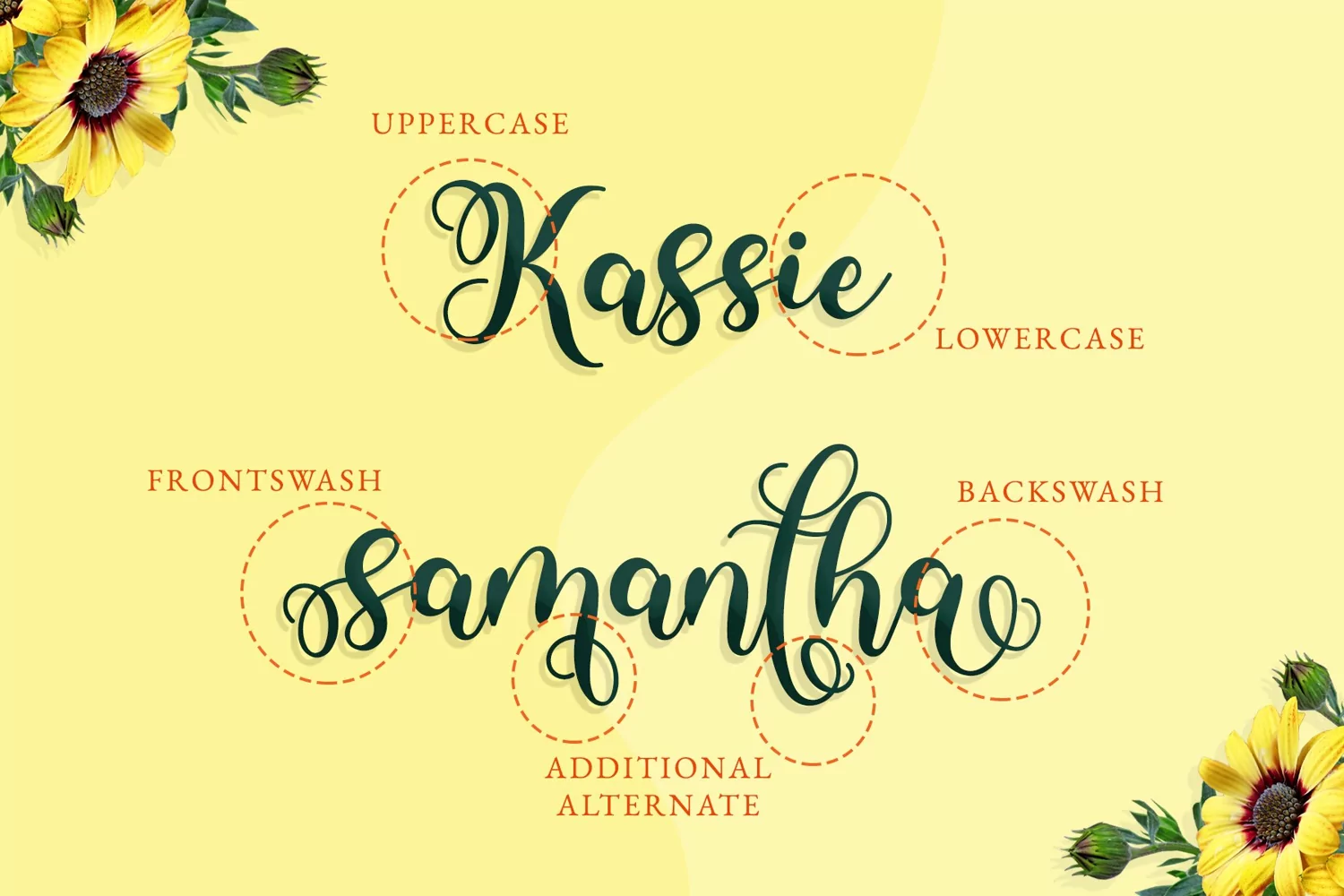
Yushina is modern sweet calligraphy font. It is elegant, classy, and sweet. Yushina has swash with swirly touch in the beginning and in the ending.
This font can be used for wide ranges of project, such as wedding invitation, branding, fashion, social media, crafting, and many others.
+Tons of Glyphs, including beautiful alternate glyphs.
+Multilingual glyphs.